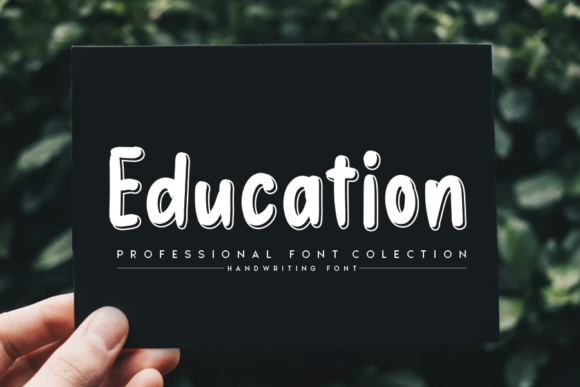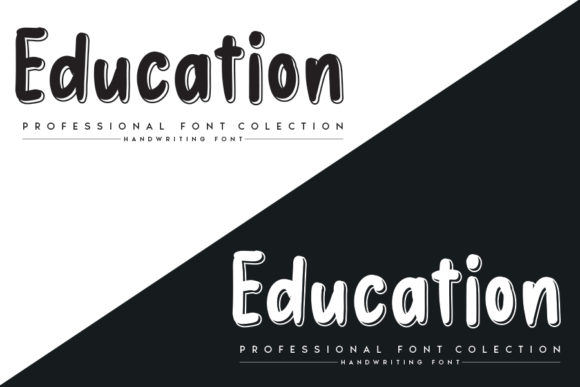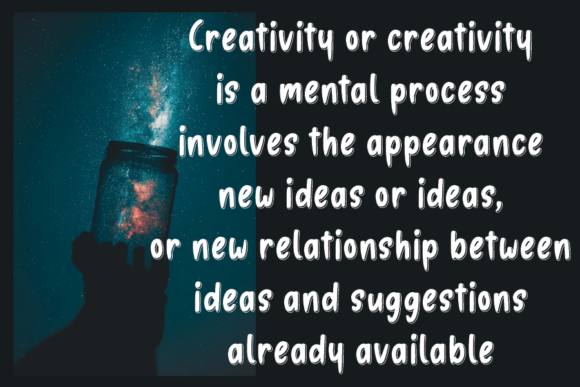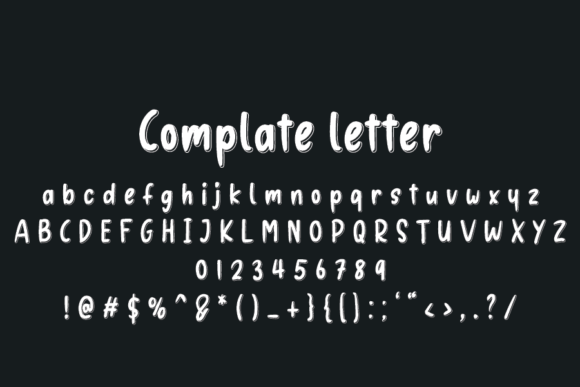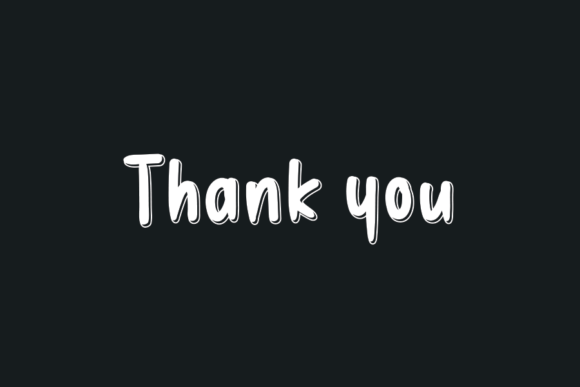
Education Font
About Education Font
Education is a sweet and friendly handwritten font, created with the help of a beautiful brush pen. Its natural and unique style makes it incredibly fitting to a large pool of designs.